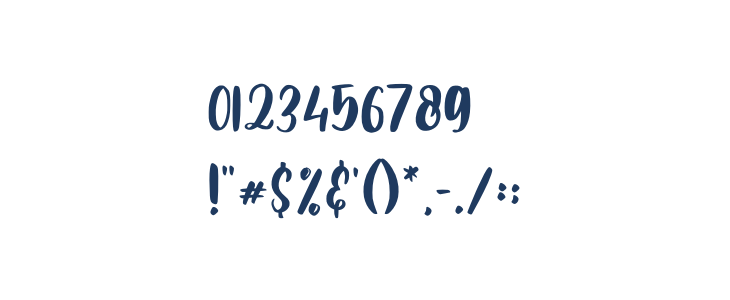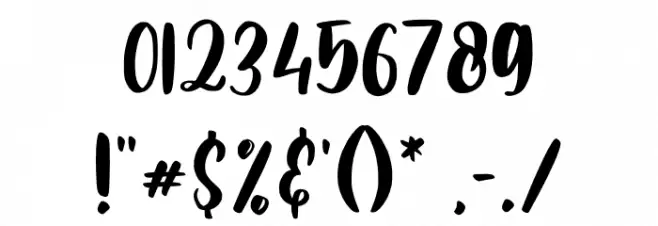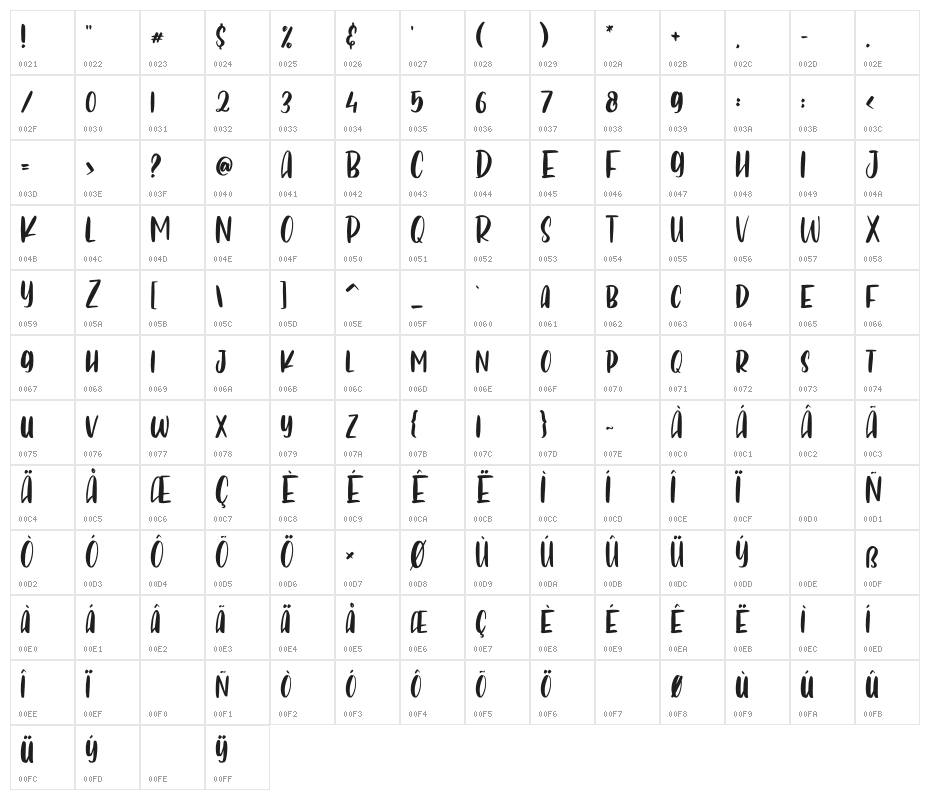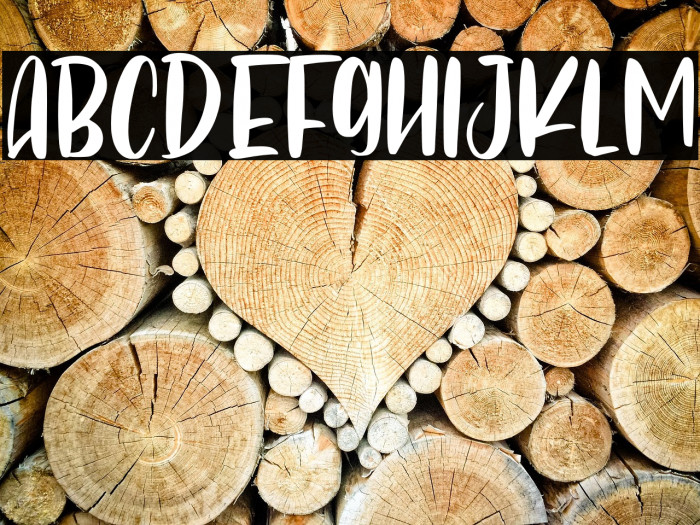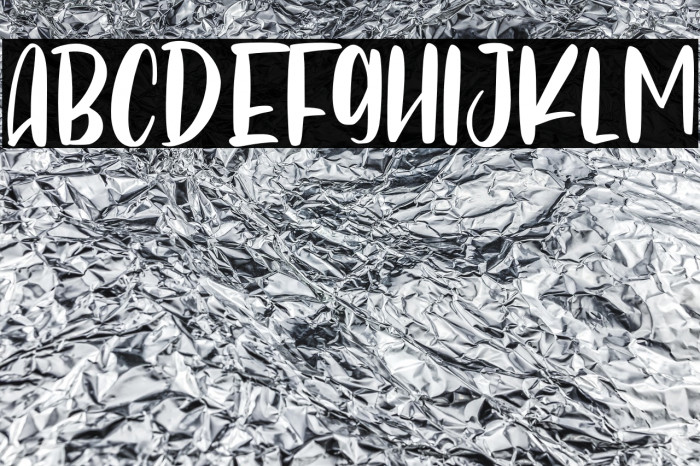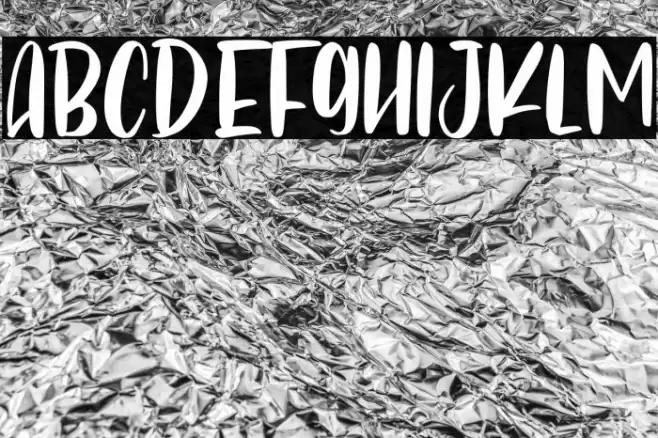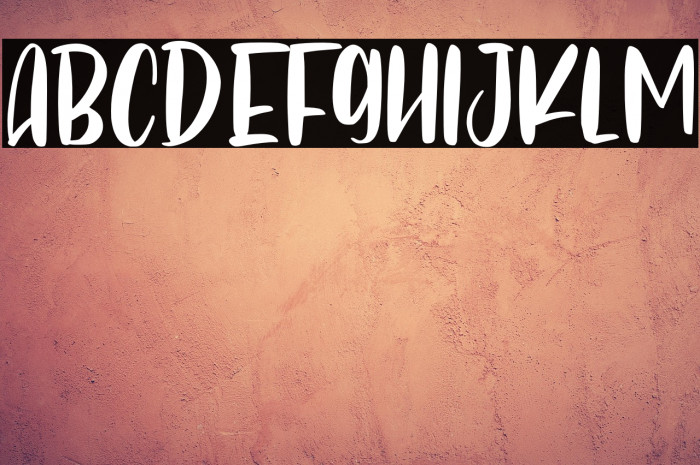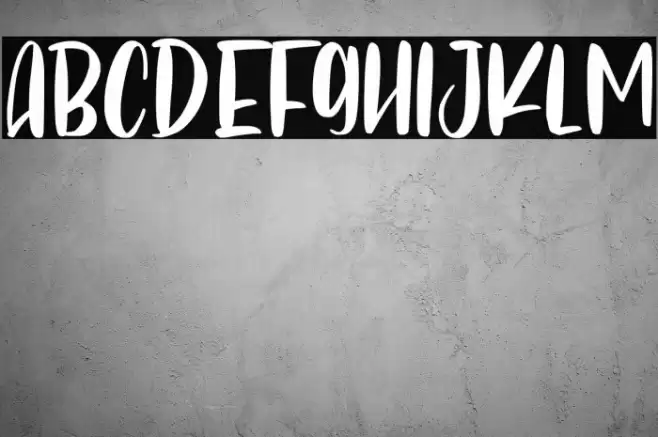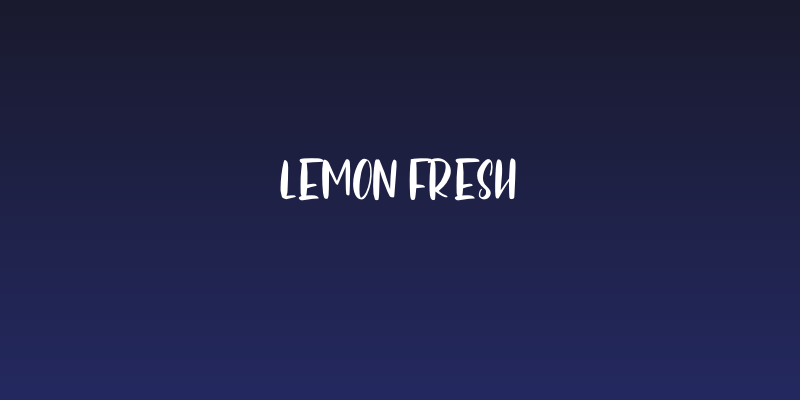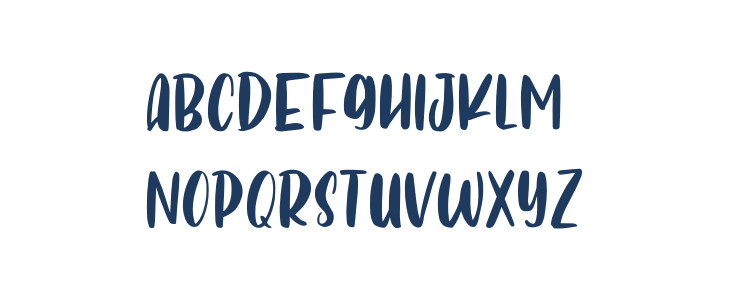
Lemon Fresh Font
Lemon Fresh Description
This font features a lively and playful script style with a handwritten appearance. The characters are bold and slightly slanted, giving them a dynamic and energetic feel. The strokes are thick and consistent, providing a strong visual impact. The uppercase and lowercase letters maintain a cohesive style, with rounded edges and smooth curves. The numerals and special characters are designed to match the overall aesthetic, ensuring uniformity across all elements. This font is ideal for projects that require a personal and informal touch, such as invitations, greeting cards, and creative branding.
Overall StylePlayful, Energetic
Use CaseHeadlines, Logos, Invitations
Proposed ProjectsIdeal for invitations, greeting cards, creative branding, and playful designs.